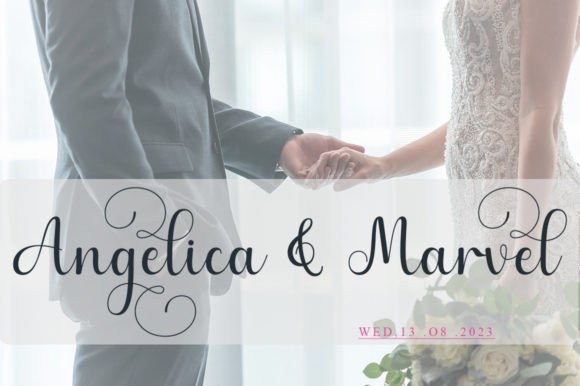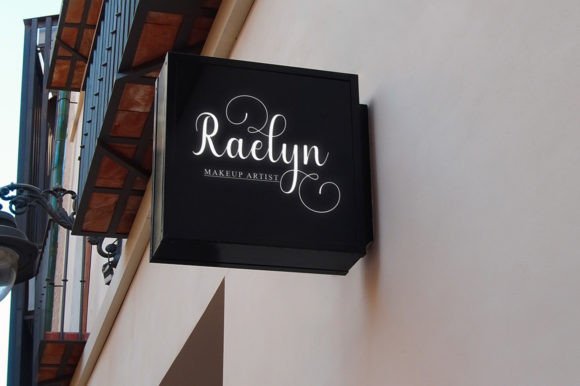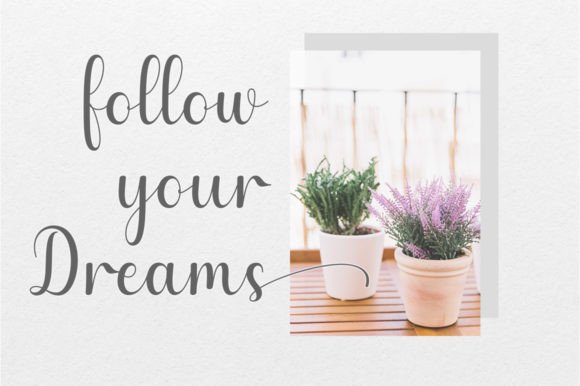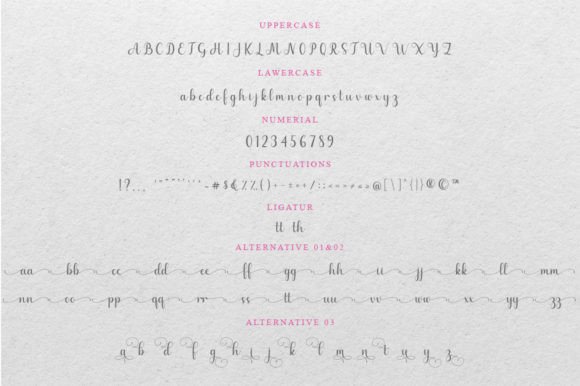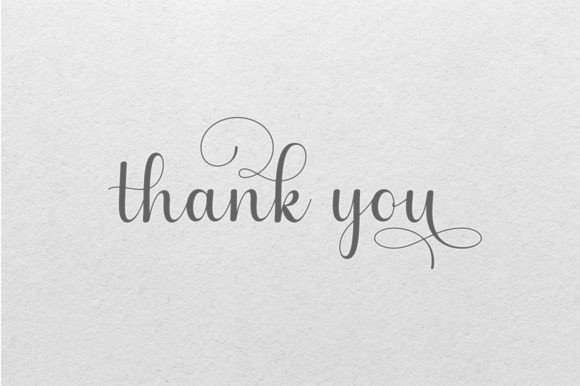
The Brinley Font: A Delicate, Elegant, and Flowing Handwritten Font
The Brinley font is a delicate, elegant, and flowing handwritten font that’s perfect for your favorite projects. Its incredibly distinct and timeless style makes it a versatile choice for a wide range of designs. In this article, we’ll dive into the world of Brinley, exploring its features, how to use it, and some similar fonts you might love.
An Honest Review of Brinley Font
What I Love About Brinley ✨
- 💫 Delicate and elegant strokes that add a touch of sophistication to any design
- 🔥 Incredibly distinct and timeless style that sets it apart from other fonts
- 🎉 PUA encoded, making it easy to access all glyphs and swashes
- 🤩 Perfect for a wide range of projects, from wedding invitations to branding and packaging
While Brinley is an amazing font, there are a few things to keep in mind:
- 🤔 Some users might find the font a bit too delicate for certain projects, such as bold or attention-grabbing designs
The Backstory of Brinley Font
The Brinley font was designed with the intention of creating a beautiful, elegant, and flowing handwritten font that would add a touch of sophistication to any design. Inspired by classic calligraphy and modern typography, Brinley is the perfect blend of traditional and contemporary styles.
Q: Is Brinley font suitable for body text?
A: While Brinley font is beautiful, it’s recommended to use it for titles, headings, and captions. For body text, a clearer font might be more suitable.